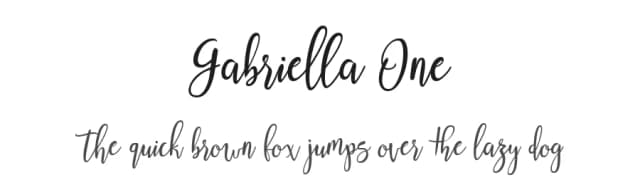
Gabriella Font by TRF is a contemporary calligraphy script distinguished by its authentic brush-work and organic character. Each letterform was meticulously hand-painted with traditional pen and brush techniques on paper, then carefully scanned and digitally refined to preserve the genuine texture and natural flow of the original brushstrokes. This process ensures that every curve and flourish retains its handcrafted charm while meeting the precision standards of digital typography. Available in multiple weight options, Gabriella One, Gabriella One Bold, Gabriella Two, and Gabriella Two Bold, this design provides the flexibility needed across diverse creative projects. The flowing letterforms and natural character make it exceptionally well-suited for wedding invitation suites, personalized greeting card designs, boutique product labels and packaging, and social media graphics that demand visual warmth and personality. Whether you're developing custom branding for a small business, creating event signage and announcements, or designing personalized stationery that reflects individual style, Gabriella Font's handcrafted foundation ensures each application feels intentional and distinctly personal. The carefully balanced interplay between elegance and accessibility makes it equally effective for both traditional print work and contemporary digital-first projects. The font's authentic character invites viewers to pause and appreciate the artistry behind your designs. Bring sophisticated, brushed elegance to your next creative work by exploring Gabriella Font's complete collection on Creative Fabrica.
- Elegant, Flowing, Gabriella One Bold
Gabriella Font is a script font that shines as a display or heading face. Pair it with a clean sans-serif or serif font for body text β the contrast creates a clear hierarchy while the two styles stay balanced and easy to read.
Gabriella Font
by TRF